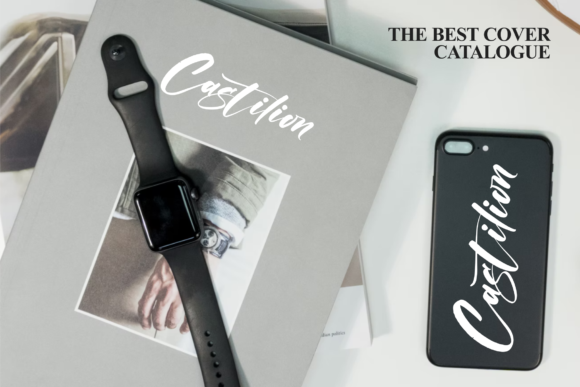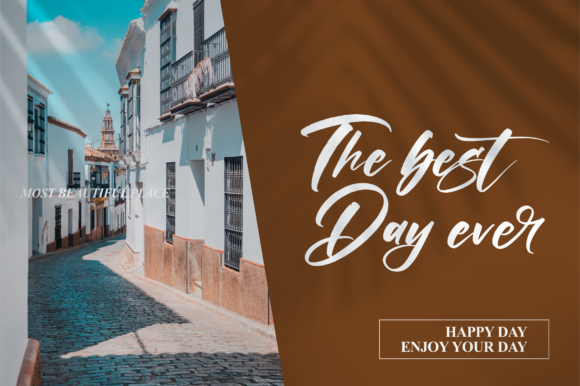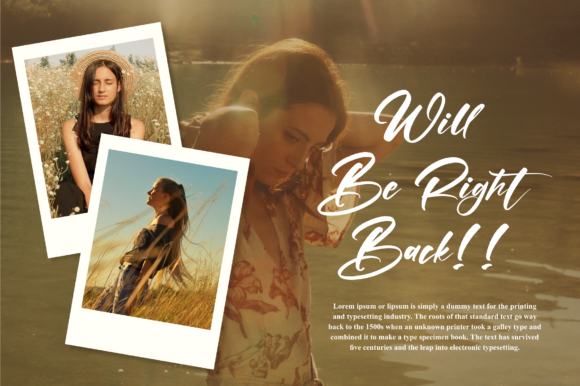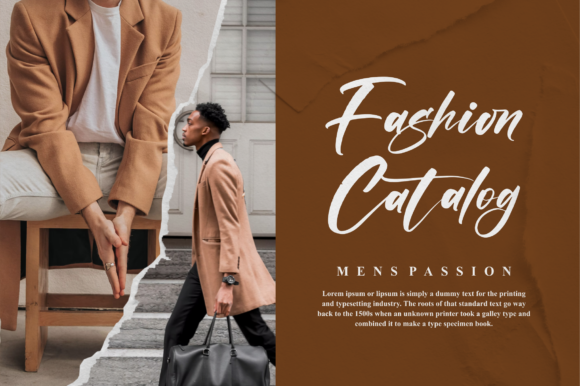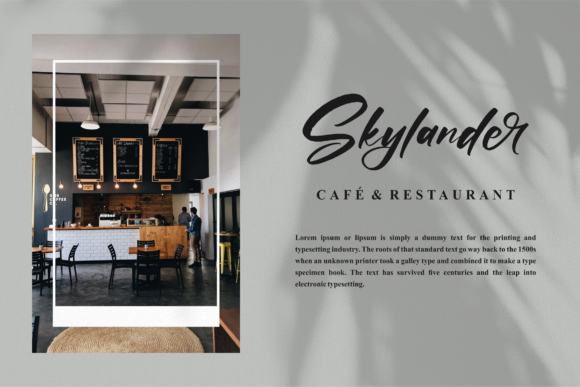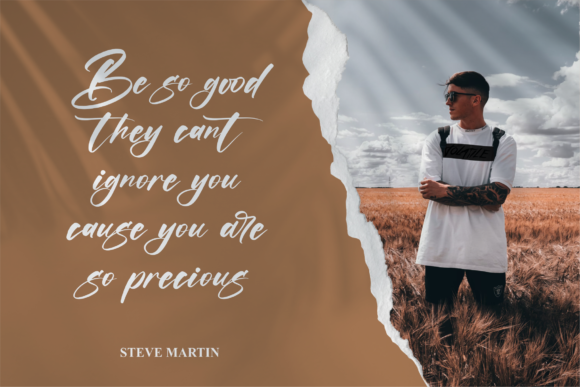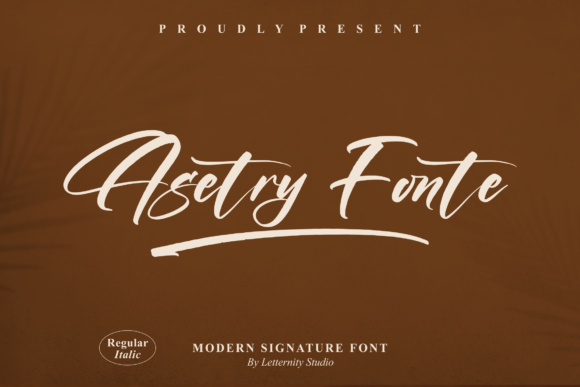
Asetry Fonte Font: Elevate Your Designs with Elegance and Sophistication
In the world of typography, few fonts manage to strike a balance between classic elegance and modern flair. Asetry Fonte Font is one such exceptional typeface that has captured the hearts of designers and crafters alike. This exquisite handwritten font is masterfully designed to become a true favorite, boasting classy calligraphic influences while feeling contemporary and fresh.
The Unique Charm of Asetry Fonte Font
Asetry Fonte Font is more than just a collection of letters; it’s an artistic expression that brings a touch of sophistication to any project. Its unique charm lies in its ability to blend traditional calligraphy with modern design elements, making it a versatile choice for a wide range of applications. Whether you’re working on a branding project, crafting beautiful wedding invitations, or designing engaging social media content, Asetry Fonte Font is sure to impress.
Key Features of Asetry Fonte Font
- Handwritten Elegance: Asetry Fonte Font boasts a beautiful, handwritten aesthetic that adds a personal touch to your designs.
- Classy Calligraphic Influences: The font’s calligraphic roots give it a sophisticated and elegant feel, perfect for high-end projects.
- Contemporary and Fresh: Despite its classic influences, Asetry Fonte Font feels modern and fresh, making it suitable for a wide range of design applications.
- Versatility: This font can be used for everything from logos and branding to invitations, packaging, and digital content.
Why Designers and Crafters Love Asetry Fonte Font
Asetry Fonte Font has quickly become a favorite among designers and crafters due to its exceptional quality and versatility. Here are a few reasons why:
- Easy to Read: The font’s clear and flowing script makes it easy to read, even at smaller sizes.
- Highly Legible: Asetry Fonte Font’s unique design ensures that it’s highly legible, making it perfect for body text and headings.
- Customizable: The font comes with a range of customization options, allowing you to tailor it to your project’s specific needs.
- Support for Multiple Languages: Asetry Fonte Font supports multiple languages, making it a great choice for international projects.
Using Asetry Fonte Font in Your Projects
So, how can you use Asetry Fonte Font to elevate your designs? Here are a few ideas to get you started:
- Branding and Logos: Use Asetry Fonte Font to create stunning logos and branding materials that exude elegance and sophistication.
- Wedding Invitations: Add a touch of romance and whimsy to your wedding invitations with this beautiful handwritten font.
- Social Media Content: Use Asetry Fonte Font to create eye-catching social media graphics that stand out from the crowd.
- Packaging Design: Elevate your packaging design with Asetry Fonte Font’s unique and stylish aesthetic.
Asetry Fonte Font is a truly exceptional typeface that deserves a place in every designer’s toolkit. Its unique blend of classic elegance and modern flair makes it perfect for a wide range of applications. Whether you’re a seasoned designer or a crafter looking to add a touch of sophistication to your projects, Asetry Fonte Font is sure to impress. So why wait? Fall in love with Asetry Fonte Font and bring your projects to the highest levels!